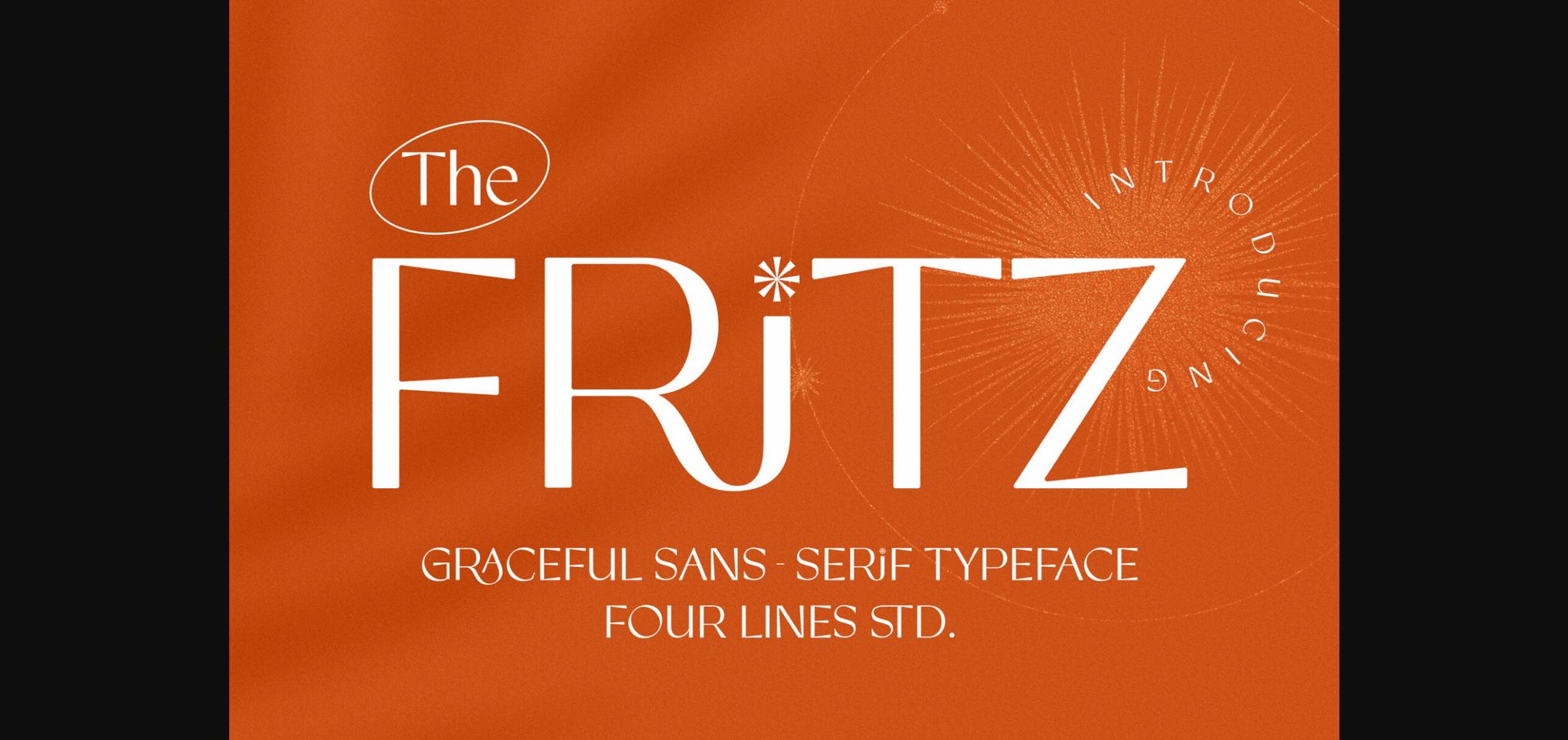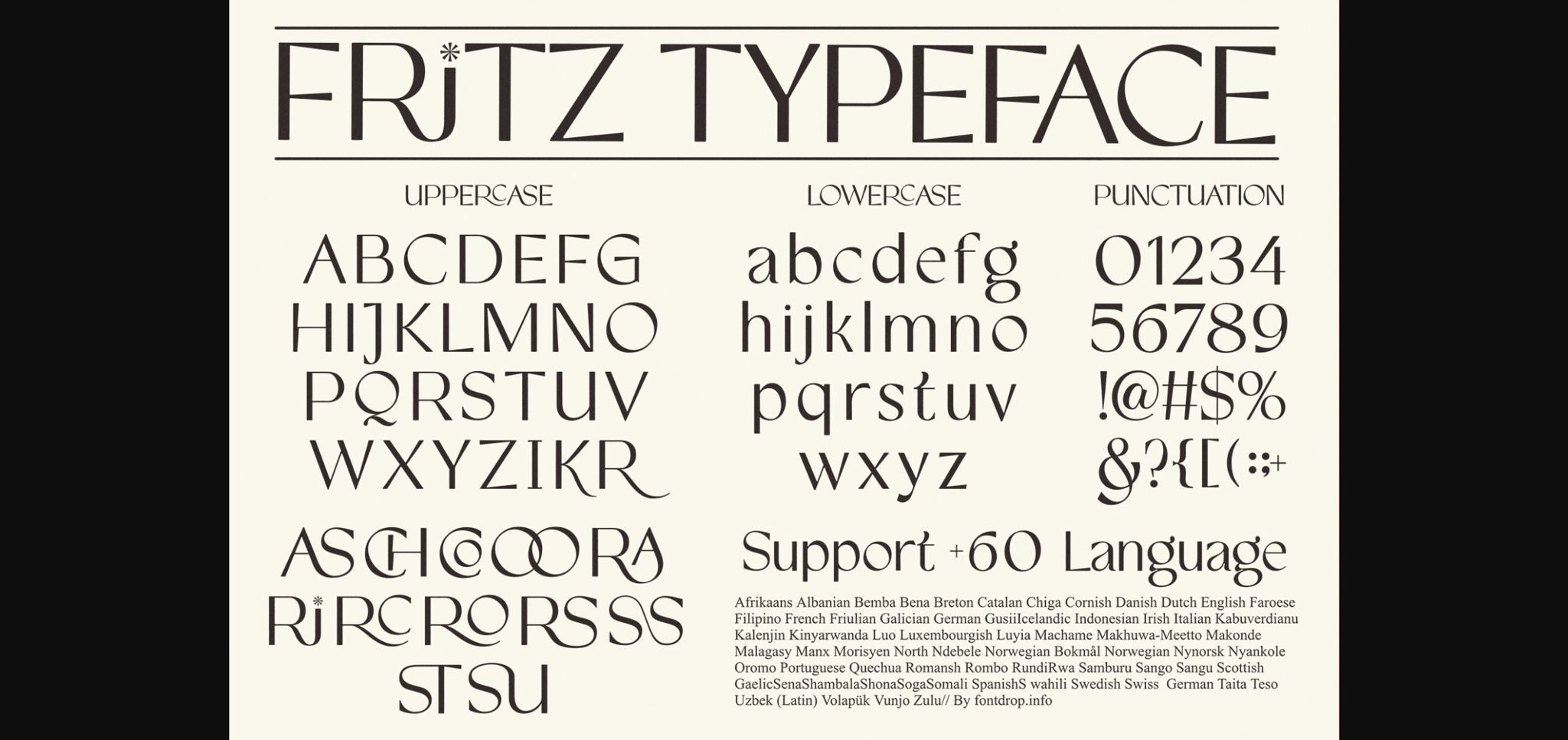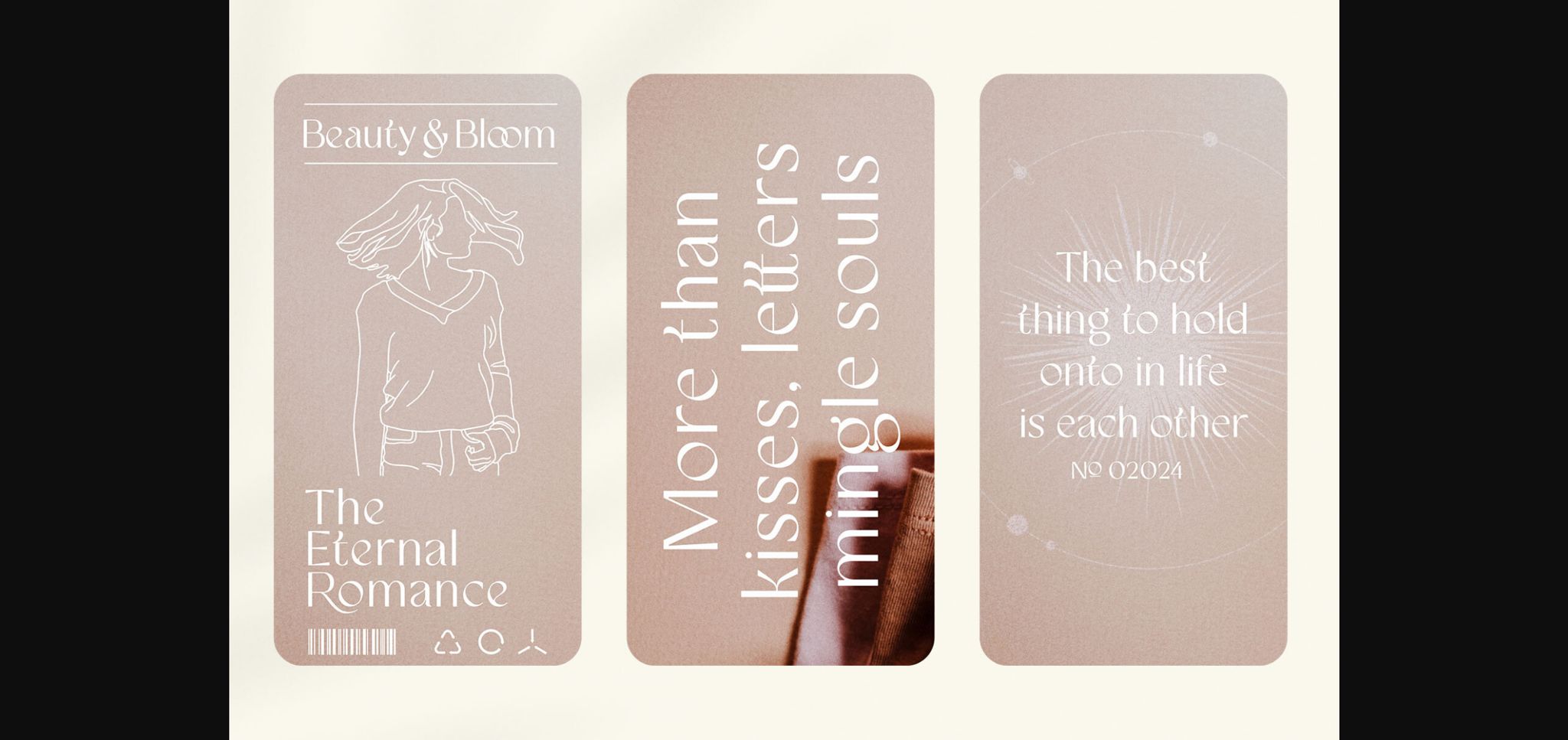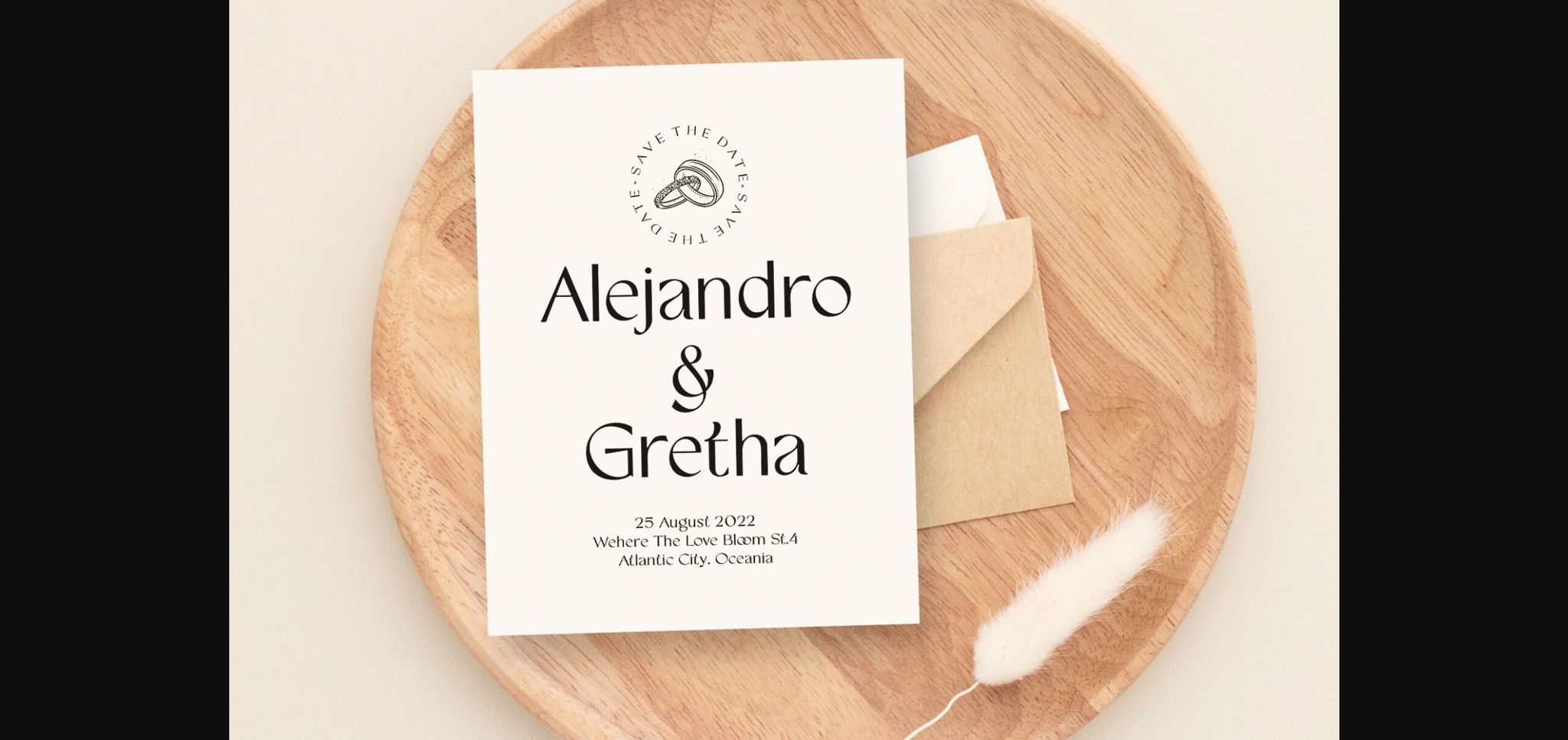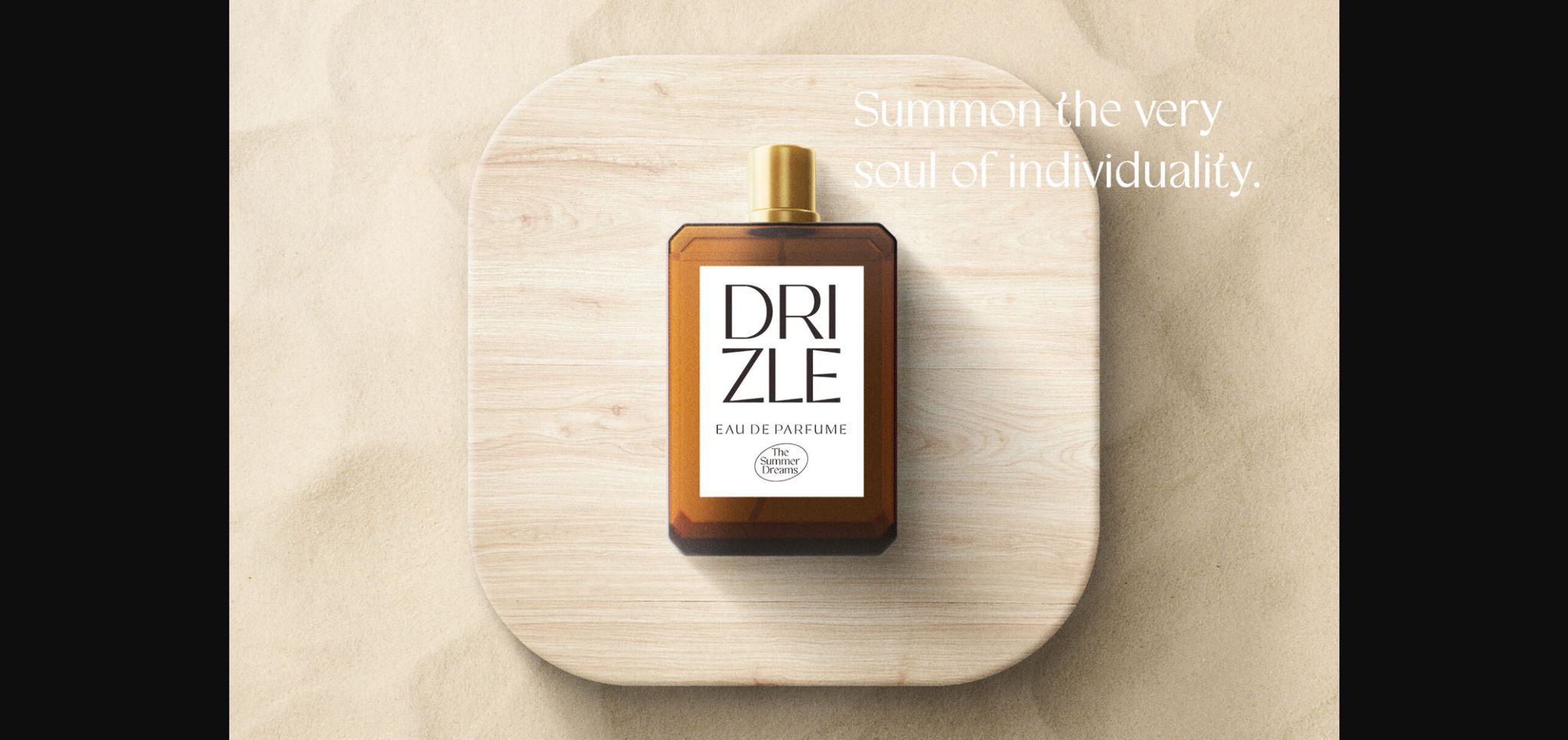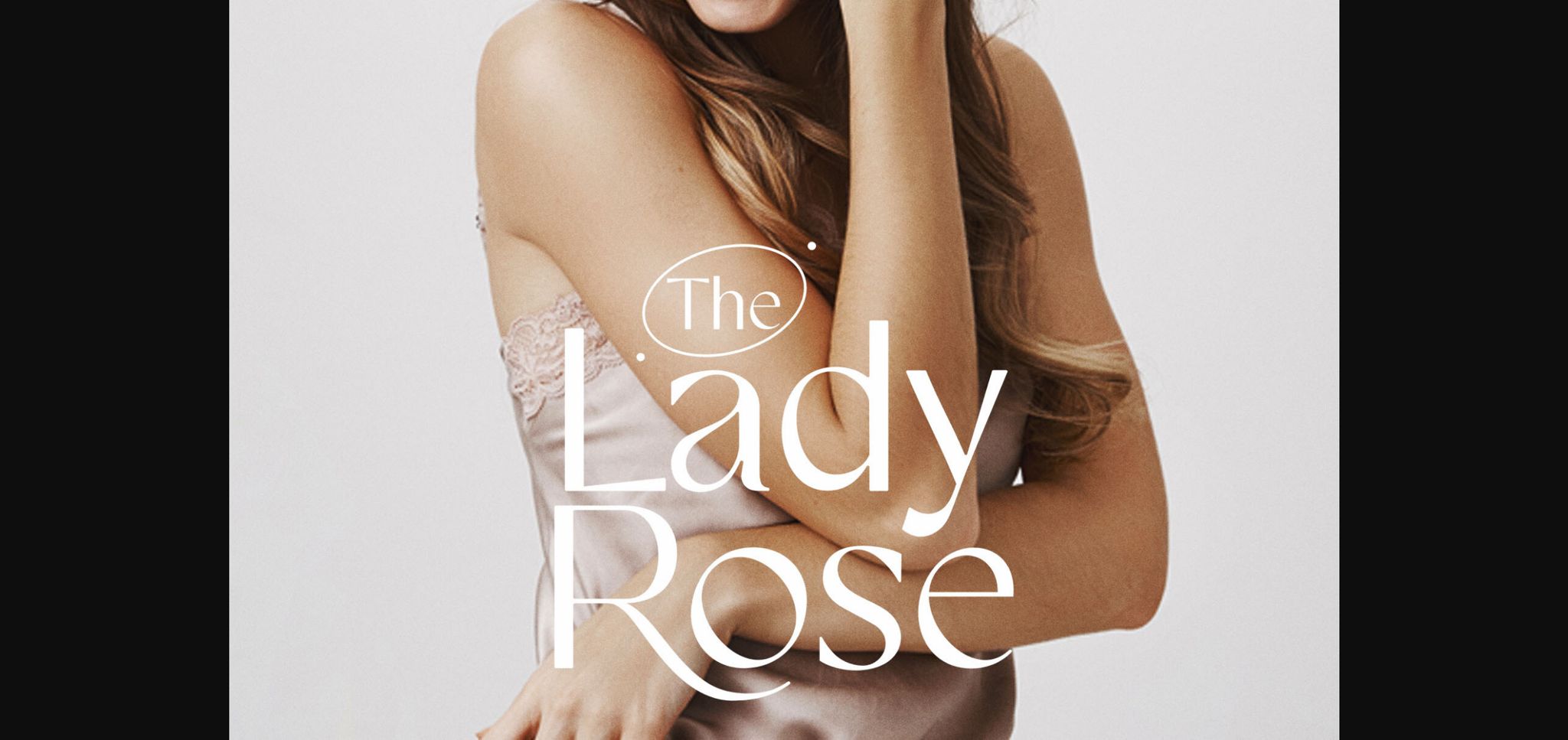
Fritz Font
About Fritz Font
Introducing Frietas, a distinctive display sans serif font that effortlessly weaves together classic, vintage, and modern elements, creating a versatile typeface tailored for diverse design needs. Perfect for posters, social media, web design, invitations, crafts, and beyond.